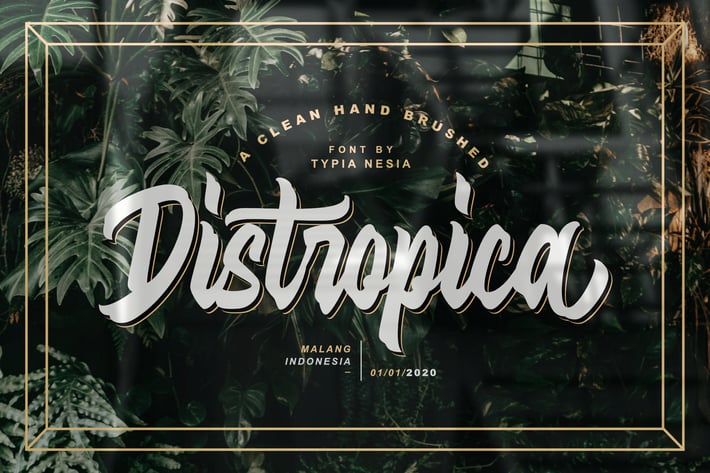
Distropica Display Font
Distropica Script Display font is an excellent font for modern hand lettering logo or headline / display / poster designs.
Suitable for any design needs : logo, branding, modern advertising design, logos, poster quote, book / cover Title, editorial design, website / blog, card, custom mug, pillow, t-shirts, and any hand-lettered needs.